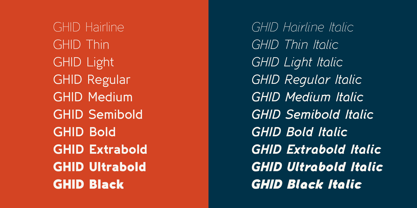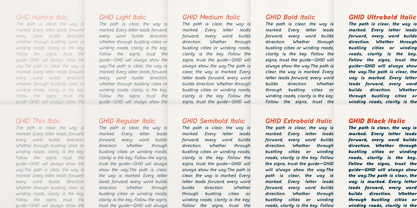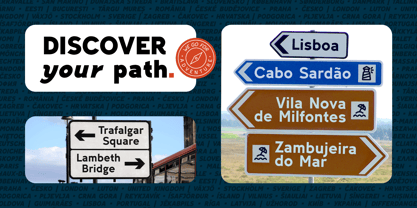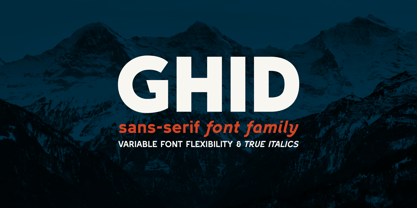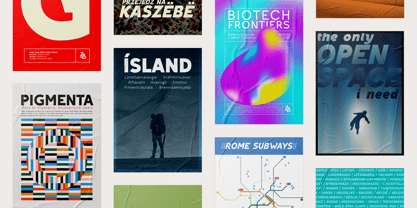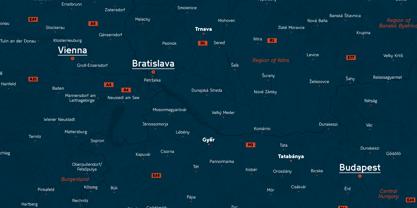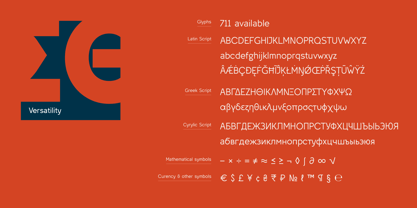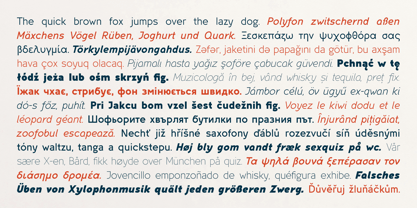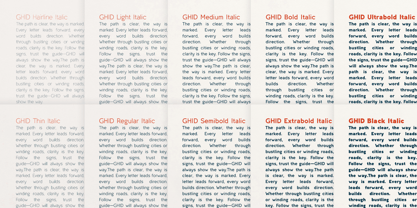
Ghid
Die Schriftfamilie Ghid wurde von Hubert Zasepa entworfen und von Zasepa Studio veröffentlicht. Ghid enthält 22 Stile und Familienpaketoptionen.
A Guide to the World of Signs
Ghid is a typeface that shows the way—quite literally. In Romanian, ghid means guide, and this typeface lives up to its name perfectly. Its letterforms draw inspiration from public spaces—road signs, directional markers, and short yet crucial pieces of information that navigate us through everyday life.
Ghid is more than just a font—it’s a guide that takes you on a journey through Transylvania and the Carpathians, through cities and remote paths, through words and visuals. It is strong and precise, yet never overwhelming. Its design ensures that every message remains clear and highly legible—even from a great distance.
This is a typeface for those who seek new experiences while relying on solid preparation. Ghid is confidence in direction—both in words and in space.
Ghid is a sans-serif typeface built on strong, geometric shapes. Its carefully balanced proportions guarantee exceptional readability, even in visually dynamic environments. It contains 711 glyphs, covering Latin, Greek, and Cyrillic alphabets. It supports a wide range of languages and includes mathematical and currency symbols.
Available as a Variable Font, Ghid offers a broad weight range—from Hairline to Black, with 10 predefined weight instances in between. It comes in both regular and italic styles, with the italic being a truly dynamic interpretation inspired by handwritten forms, rather than just a mechanical slant. The regular style features double-story a and g, while in italic, these characters take on a single-story form.
The aperture is moderate, and letter endings feature subtle tapering. Ghid was designed for quick readability, whether viewed up close or from a distance.
Additionally, it supports OpenType features, ligatures, and subtle ink traps, making it a versatile choice for both informational signage and modern functional typography.